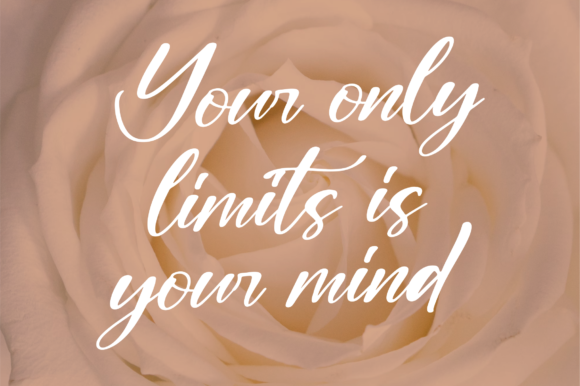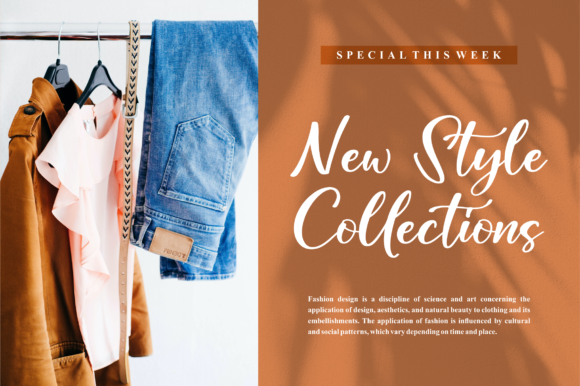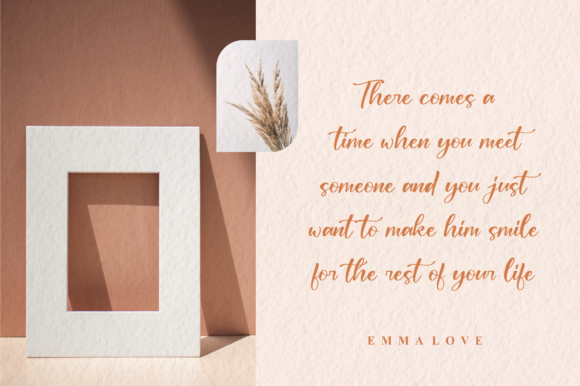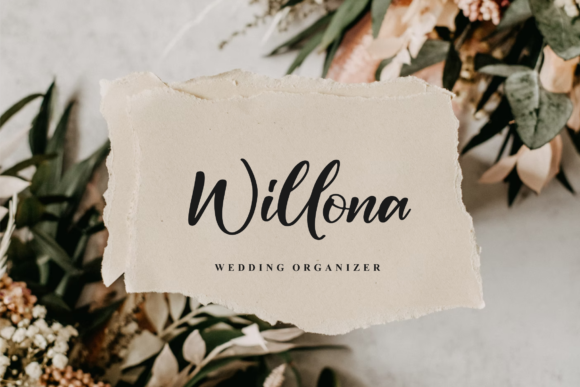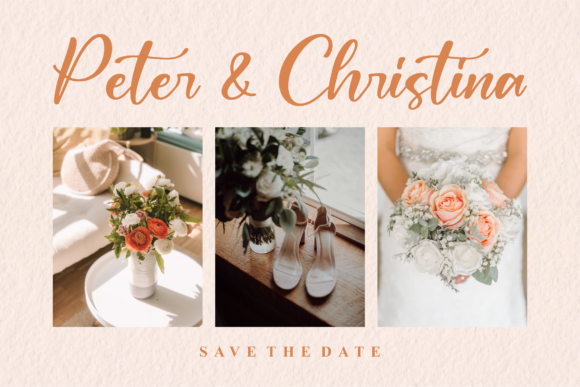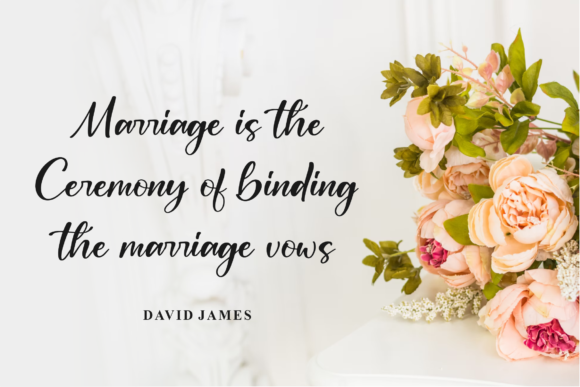
Introducing Ballestic Font: Elevate Your Designs with Delicate Flair
In the world of typography, a font can make or break a design. For designers and crafters seeking to add a touch of elegance and sophistication to their projects, Ballestic Font is an exceptional choice. This delicate and fashionable script font is perfect for a wide range of applications, from logos and t-shirt printing to creative products and more.
The Beauty of Ballestic Font
Ballestic Font boasts a unique, flowing script style that exudes refinement and poise. Its intricate details and smooth lines make it a versatile font suitable for various design contexts. Whether you’re working on a branding project, creating custom apparel, or designing unique products, Ballestic Font is sure to impress.
Key Features of Ballestic Font
- Delicate and Fashionable: Ballestic Font features a slender, elegant design that adds a touch of sophistication to any project.
- Script Style: The font’s script style makes it perfect for designs that require a personal, hand-written feel.
- Versatile: Ballestic Font can be used in a variety of contexts, from logos and branding materials to t-shirt printing and creative products.
- High-Quality: The font is designed to deliver exceptional results, with crisp and clear lines that will not disappoint.
Ballestic Font is an excellent addition to any designer’s or crafter’s toolkit. Its unique style and versatility make it an ideal choice for a wide range of projects, including:
- T-Shirt Printing: Add a touch of elegance to your custom apparel with Ballestic Font.
- Creative Products: Use Ballestic Font to create unique and eye-catching designs for your handmade products.
Tips for Using Ballestic Font
To get the most out of Ballestic Font, consider the following tips:
- Pair with Bold Fonts: Combine Ballestic Font with bold, contrasting fonts to create visual interest and hierarchy.
- Experiment with Colors: Try pairing Ballestic Font with different colors to add depth and personality to your design.
- Use for Headlines and Titles: Ballestic Font is perfect for headlines and titles, adding a touch of elegance and sophistication to your design.
Ballestic Font is a delicate and fashionable script font that is sure to elevate your designs. Its versatility, elegance, and sophistication make it an excellent choice for designers and crafters seeking to add a touch of refinement to their projects. With its wide range of applications and ease of use, Ballestic Font is an essential addition to any design toolkit.